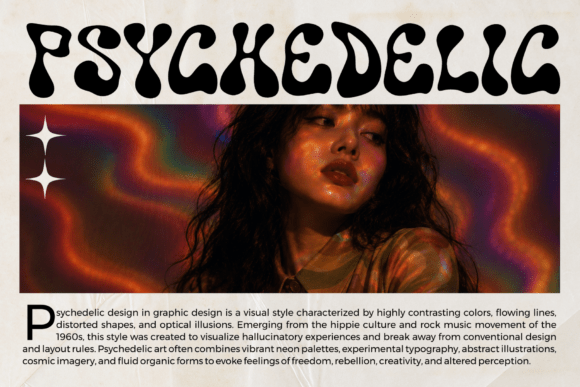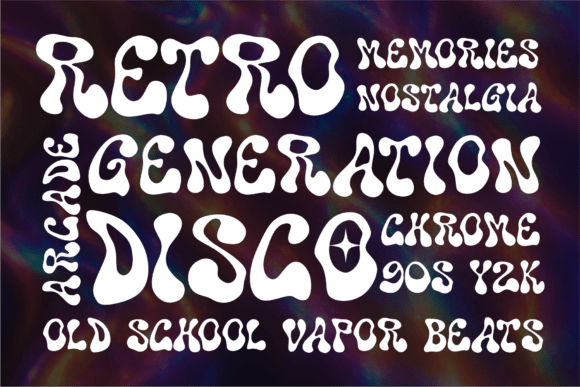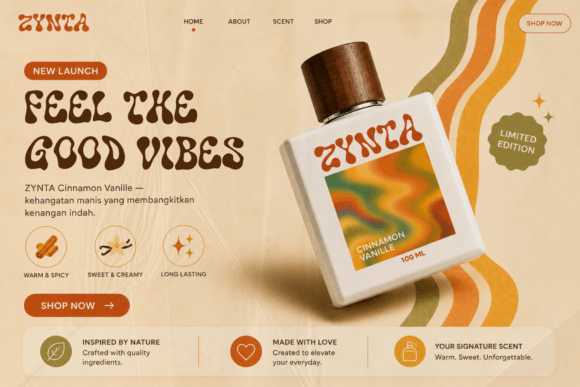
Mignova – Psychedelic Typeface Take a trip into the mesmerizing world of retro-futurism with Mignova, a premium psychedelic display typeface designed to warp the boundaries of standard typography.
Masterfully blending the melting, fluid aesthetics of late-1960s counterculture with a clean, contemporary layout rhythm, this font features heavy, distorted liquid forms that ebb and flow organically Its bold, trippy silhouettes stretch and bend, creating an enchanting visual rhythm that looks completely alive.